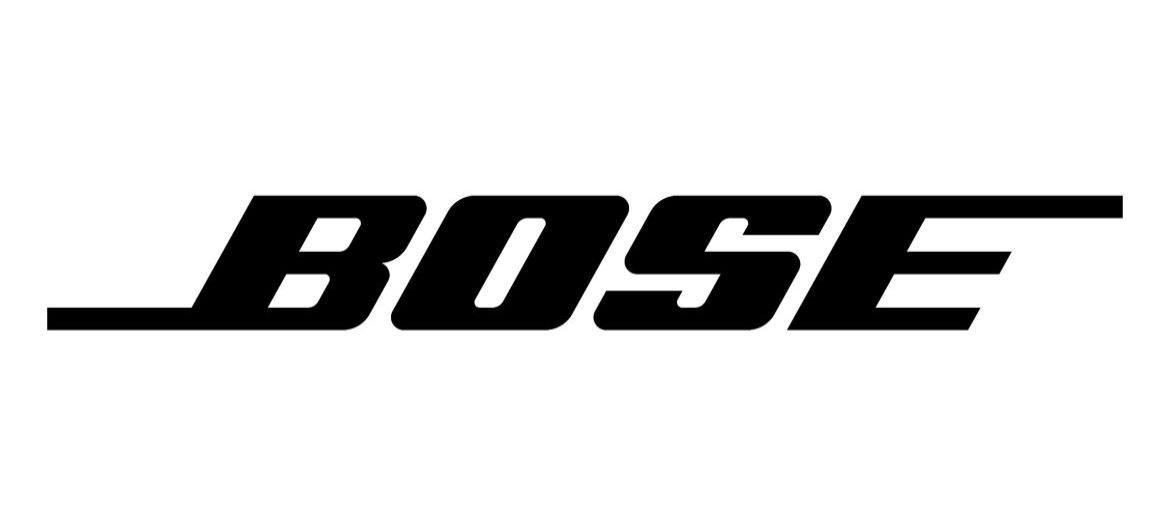
Bose Font
What Font is Bose?
The BOSE Font used in the brand’s word-mark is most likely Archie Pro Italic, a premium geometric sans-serif with bold, slanted letterforms that convey speed and precision. Because this font is paid, we’ve identified a free alternative font that closely emulates the same strong italicized style — ideal for recreating the iconic look of the BOSE brand in your own designs.
About BOSE
BOSE is a renowned American audio equipment manufacturer founded in 1964. From high-end speakers and headphones to sound systems, the brand is synonymous with innovation, quality, and a commitment to “Better Sound Through Research.” Its typography — bold, italicized and forward-leaning — reflects motion, clarity and cutting-edge performance in the world of sound technology.